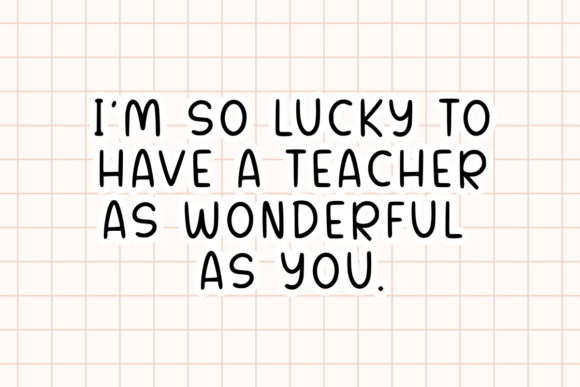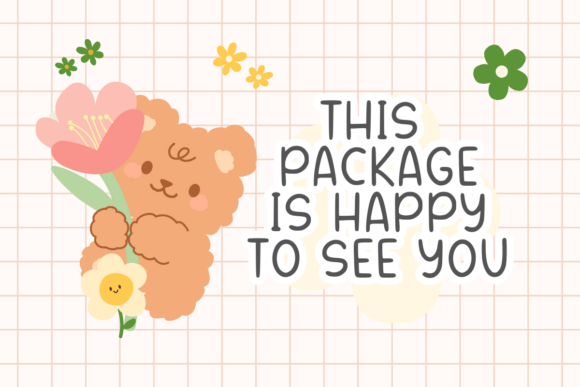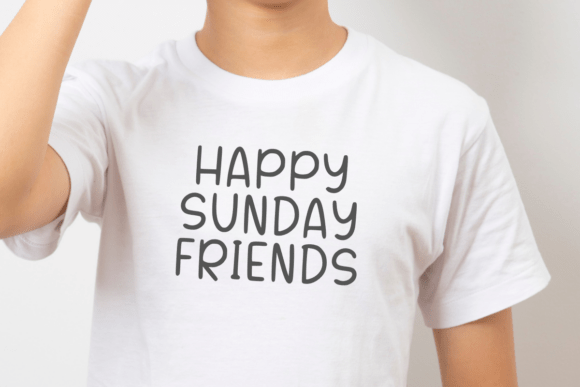
Introduction to Saturday Drinks Font
Saturday Drinks is an elegantly minimalist, thin sans serif font that mirrors the charm of natural handwriting.
This font excels in bringing a simplistic allure to planners, interior kdp, journals, cricut creations, stickers, labels, and inspiring quotes Whether you’re crafting for tumblers, mugs, tote bags, or other inventive pieces, Saturday Drinks its understated touch, transforming ordinary crafts into extraordinary artistic expressions.
Key Features of Saturday Drinks Font
Why Choose Saturday Drinks Font?
Saturday Drinks Font offers exceptional quality and versatility, making it a valuable addition to your design toolkit. Whether you’re creating for personal projects or commercial use, Saturday Drinks Font delivers professional results.